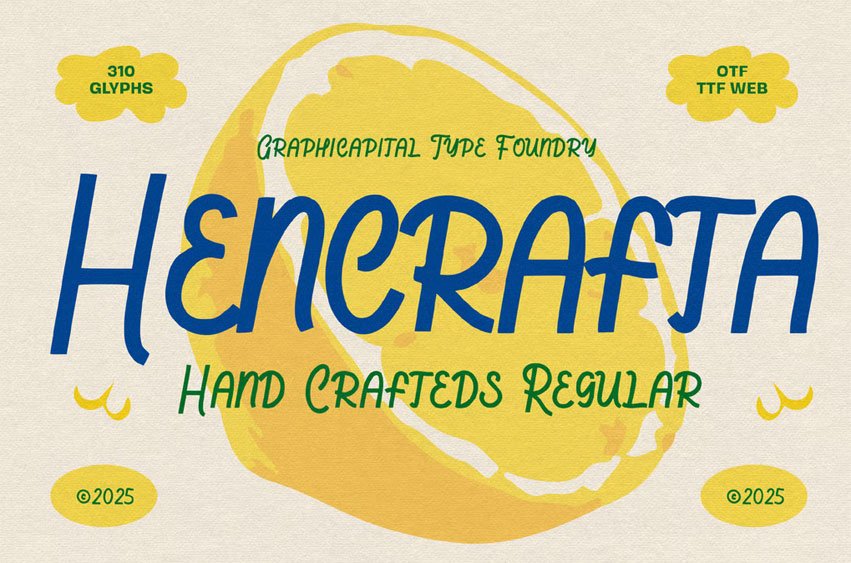
Hencrafta Font is a hand-drawn font with neat yet distinctive handwritten forms, giving a handcrafted, friendly, and artistic feel. Suitable for playful and informal designs.
Perfectly suited for logos, posters, editorial titles, packaging, album covers, gaming graphics, and marketing materials. It brings characteristics to any creative project and ensures your message gets noticed.